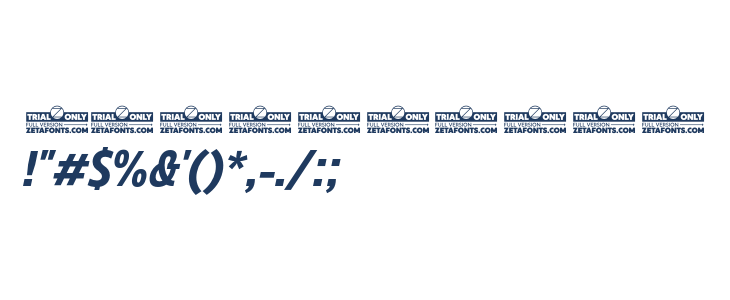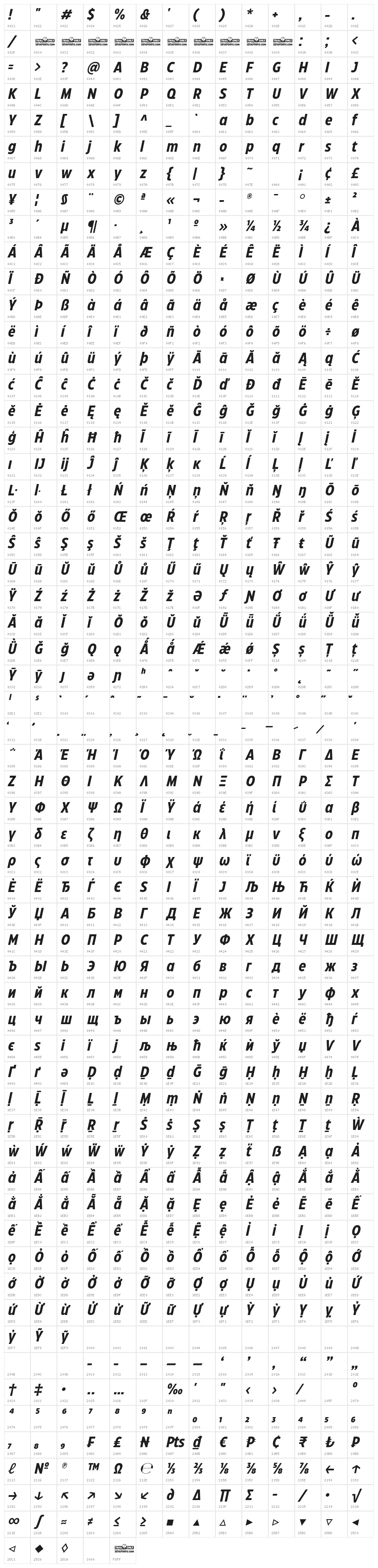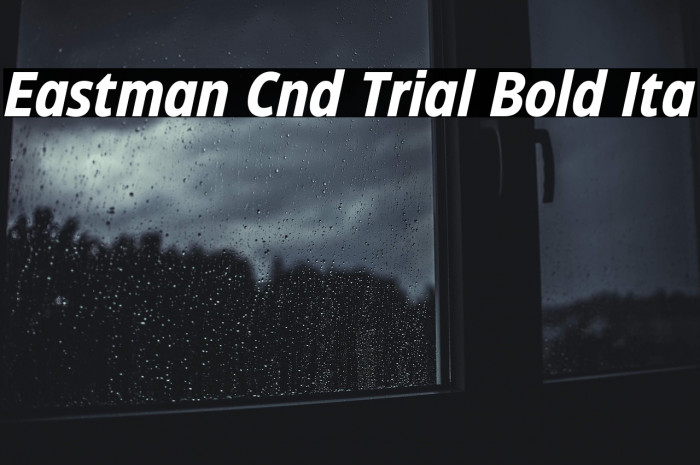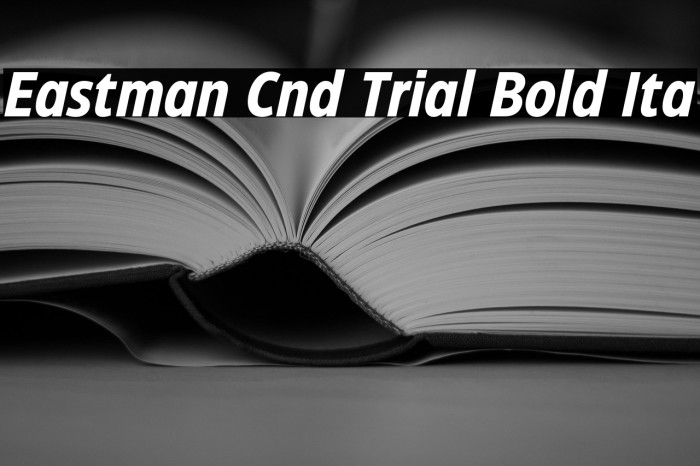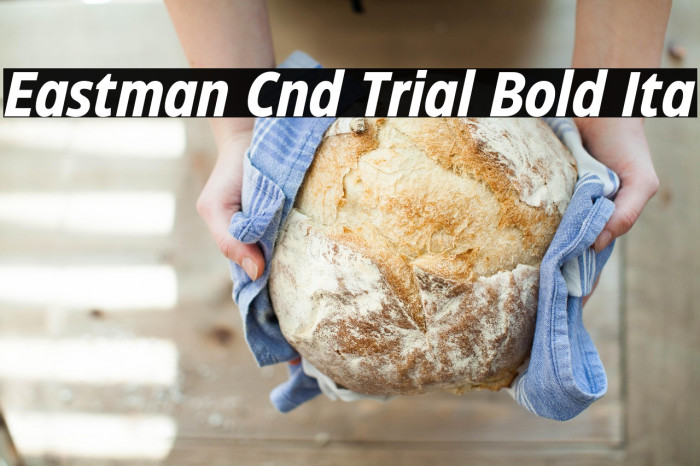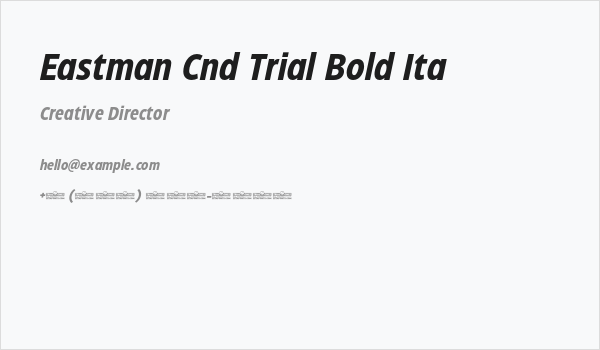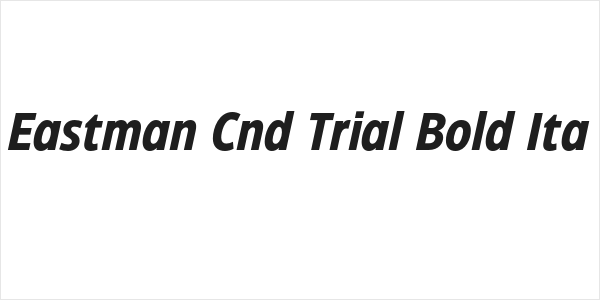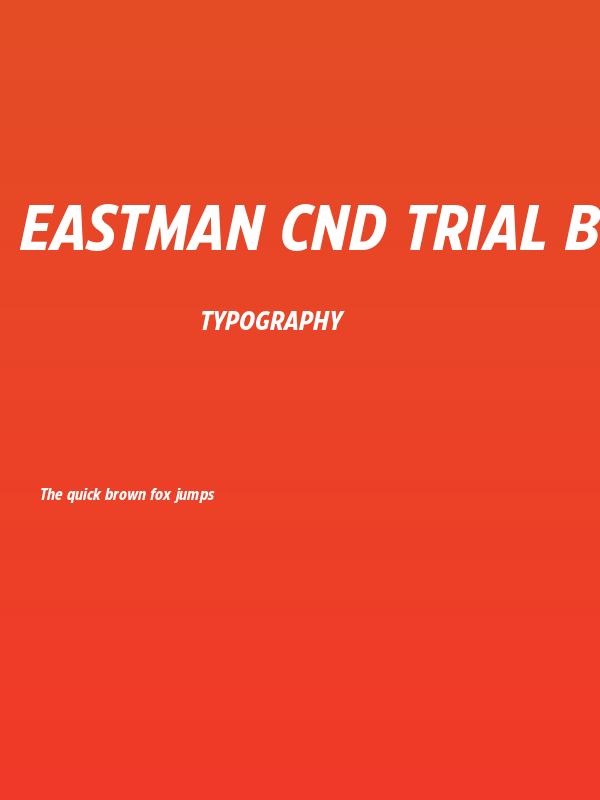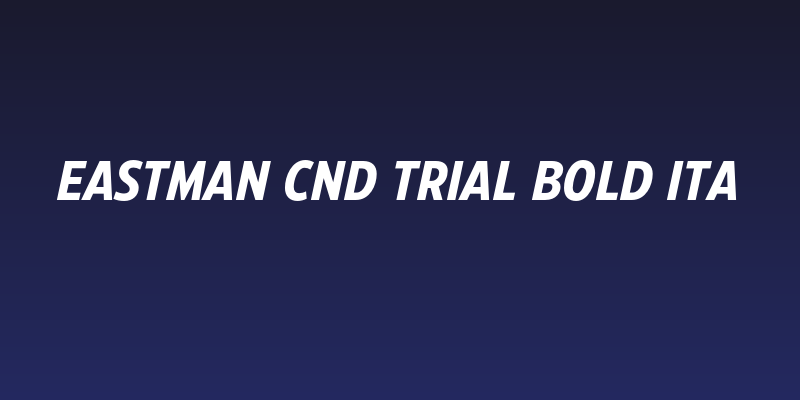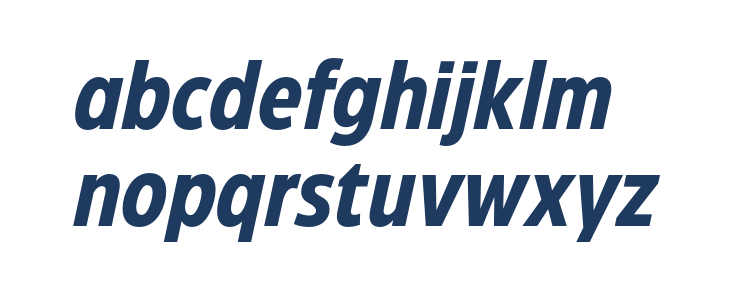
Eastman Cnd Trial Bold Ita Font
Eastman Cnd Trial Bold Ita Description
This font exhibits a bold and italicized style with a condensed width, making it highly impactful and suitable for attention-grabbing designs. The characters are well-defined with a modern aesthetic, featuring clean lines and a slight slant that adds dynamism. The uppercase and lowercase letters maintain a consistent style, ensuring readability while conveying a sense of urgency and emphasis. The numerals and special characters are equally bold and well-integrated, providing a cohesive look across all text elements. This font's strong presence makes it ideal for projects that require a bold statement.